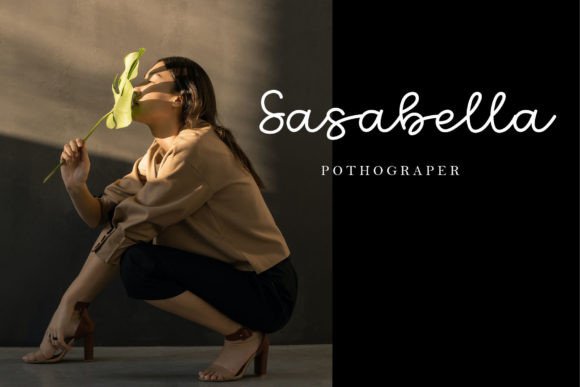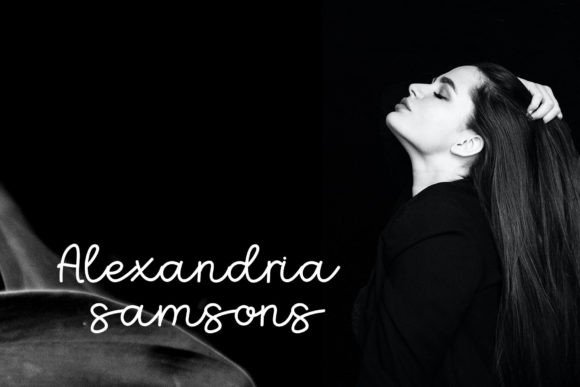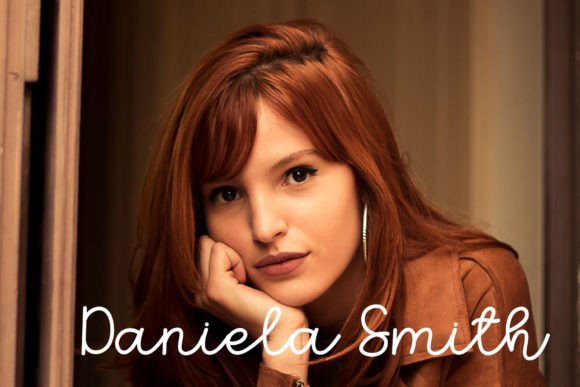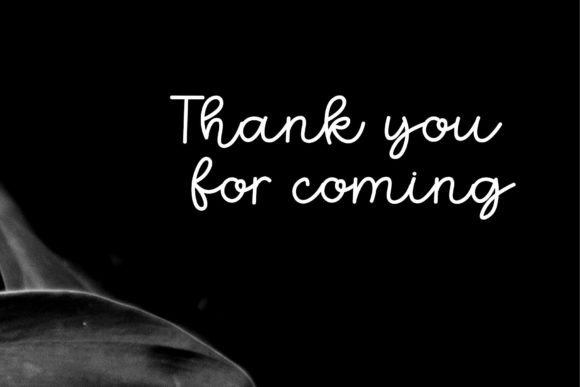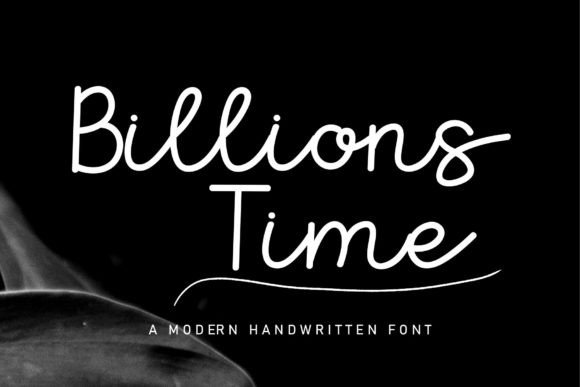
The Billions Time Font: A Simple yet Powerful Addition to Your Design Arsenal
I’ll never forget the time I was working on a project for a client’s birthday card. I had all the design elements in place – the colors, the graphics, the overall vibe – but something was missing. It wasn’t until I stumbled upon the Billions Time font that the entire design came together. This simple handwritten font has a way of adding a natural and effortless feel to any project, and I’m excited to share its capabilities with you.
What I Love About Billions Time ✨
- ✅ Versatility: Billions Time is one of those rare fonts that can be used for a wide range of applications, from greeting cards to headlines.
- ✅ Legibility: The font is incredibly easy to read, even at smaller sizes, making it perfect for body text or captions.
- ✅ Character: Billions Time has a unique, handwritten feel that adds a touch of personality to any design.
- ⚠️ Limited Extras: Billions Time doesn’t come with a ton of extra features or glyphs, but what it does offer is clean and well-designed.
- ⚠️ Not Suitable for All Audiences: While the font is highly versatile, it may not be the best choice for more formal or corporate designs.
The Story Behind Billions Time: A Designer Inspiration
Billions Time was created with the goal of crafting a simple, versatile font that could be used in a wide range of applications. The designer, inspired by the beauty of handwritten text, set out to create a font that felt both natural and effortless. With its clean lines and elegant feel, Billions Time is the perfect addition to any design project.
Q: What makes Billions Time so versatile?
A: Billions Time is designed to be highly legible and adaptable, making it suitable for a wide range of applications, from greeting cards to headlines.
Q: Does Billions Time come with any extra features or glyphs?
A: While Billions Time doesn’t come with a ton of extra features, it does offer a clean and well-designed character set that’s perfect for most design projects.
Q: Can I use Billions Time in digital applications?
A: Absolutely! Billions Time is a digital font, and it’s perfect for use in websites, social media graphics, and more.